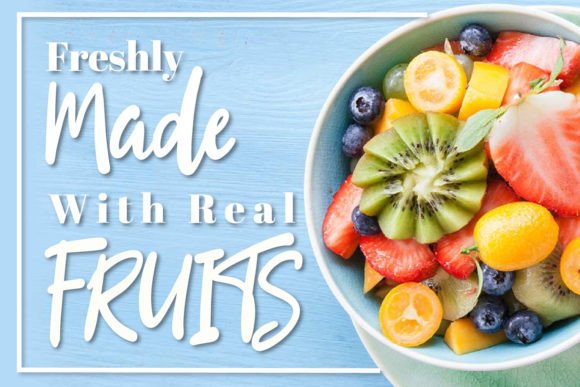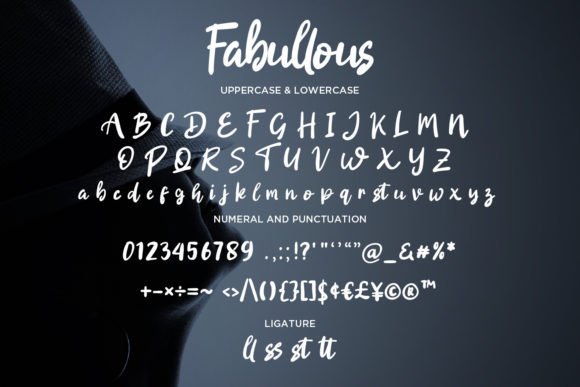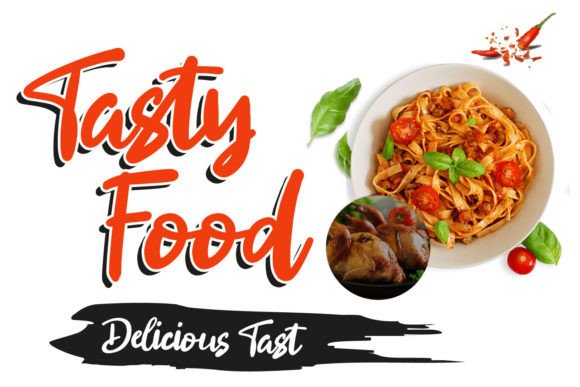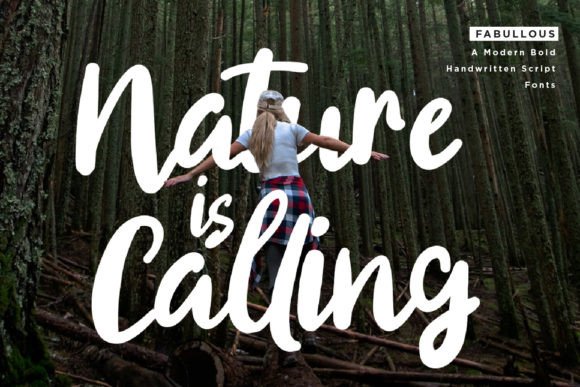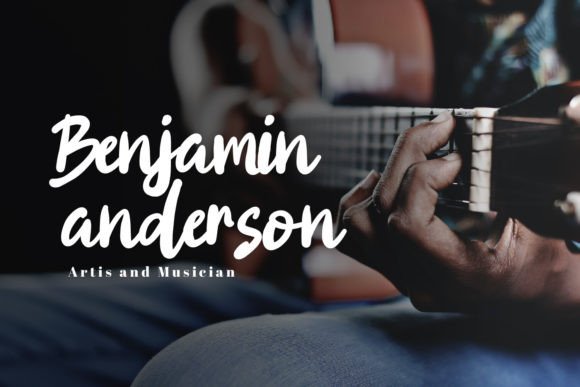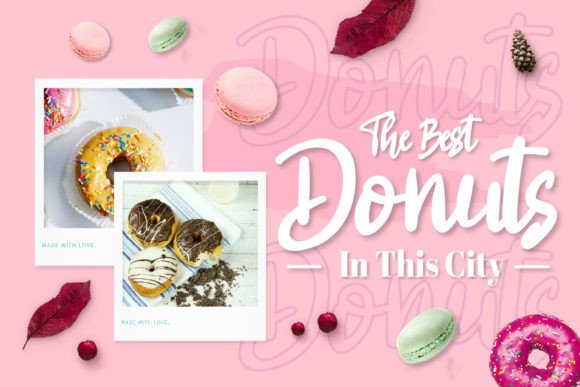
The Fabullous Font: Elevate Your Designs with a Touch of Handwritten Elegance
Have you ever been in the middle of a design project, and suddenly, you’re stuck on finding the perfect font? I recall a recent experience where a client asked for a quote design that required a very specific, elegant handwritten look. After scouring through numerous font libraries, I stumbled upon the Fabullous Font, and it completely transformed my design. In this article, we’ll dive into the world of Fabullous, exploring its features, uses, and what makes it a fantastic addition to any design project.
A Personal Review: What I Love About Fabullous
Here’s what makes Fabullous a standout font:
- ✨ Unique Handwritten Style: Fabullous boasts a distinctive handwritten script that adds a personal touch to any design.
- ✅ Versatility: It’s suitable for a wide range of projects, from branding and promotional ads to quotes, merchandise, and social media.
- 💫 Elegant and Readable: The font strikes a perfect balance between elegance and readability, making it ideal for both headings and body text.
While Fabullous is an excellent font, there are a few minor considerations:
- 🤔 Limited Use in Serif-Heavy Designs: Fabullous is a script font, so it might not be the best fit for designs that heavily feature serif fonts.
- ⚠️ Requires Attention to Ligatures: To get the most out of Fabullous, you might need to adjust ligatures for optimal readability and aesthetics.
The Story Behind Fabullous: Designer Inspiration
Fabullous was crafted with the intention of bringing a touch of elegance and personality to design projects. The designer aimed to create a font that feels both handwritten and refined, perfect for those looking to add a human touch to their work. While the exact story behind Fabullous might be shrouded in mystery, its inspiration clearly comes from a passion for beautiful handwriting and typography.
| Author | Naharstdio |
| What makes Fabullous suitable for branding projects? | Fabullous offers a unique, elegant handwritten style that can help brands stand out and convey a sense of personality. |
| Is Fabullous easy to read? | Absolutely! Fabullous strikes a great balance between elegance and readability, making it suitable for both headings and body text. |
In conclusion, Fabullous is a versatile and elegant handwritten script font that can elevate your designs to a new level. With its unique style, readability, and range of applications, it’s a fantastic addition to any design project. Whether you’re a designer, crafter, or creative hobbyist, Fabullous is sure to inspire and enhance your work.